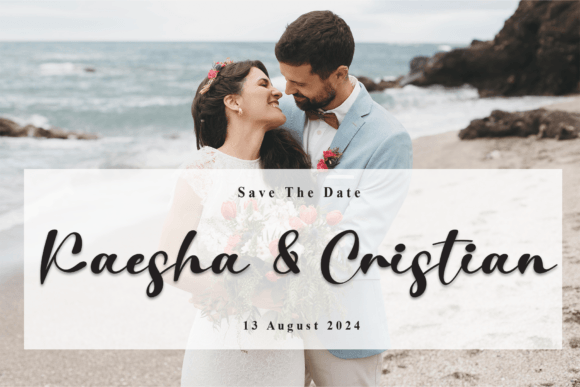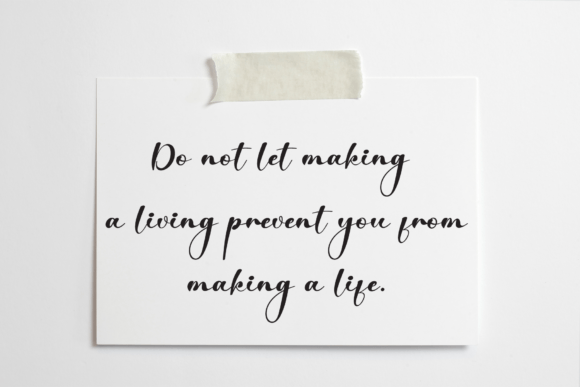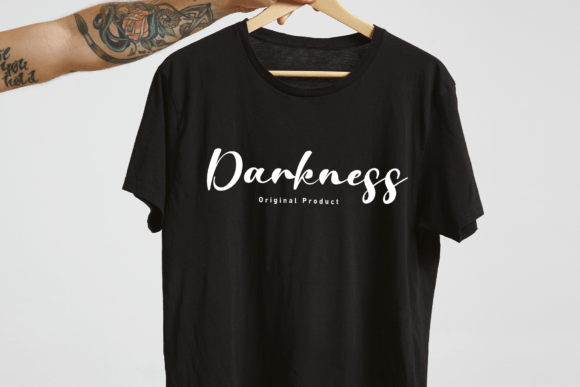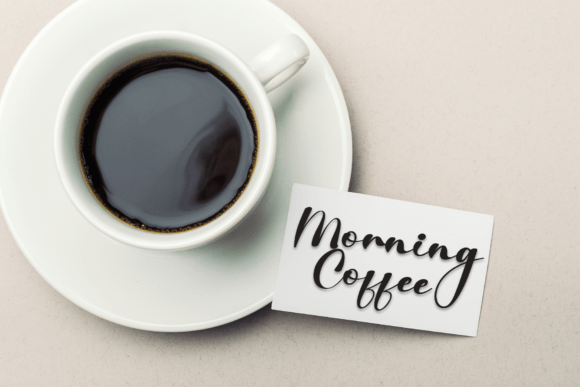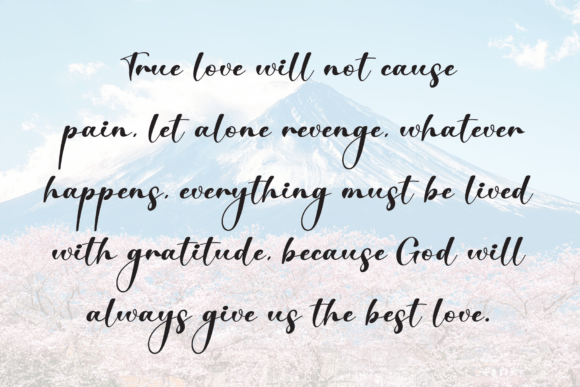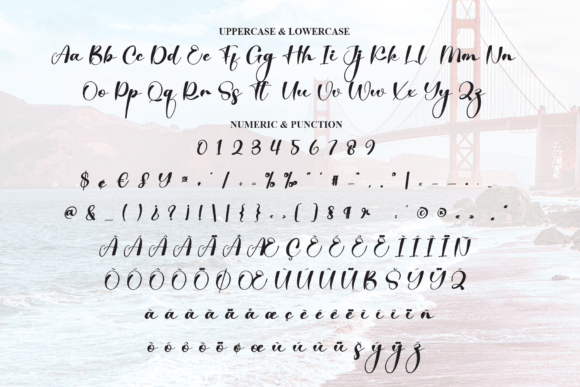
The Sunshine State of Typography
Have you ever been on a road trip along the Pacific Coast Highway, the wind in your hair and the sun on your face, feeling carefree and alive? That’s the essence of California, a place where dreams are made and memories are born. And just like the Golden State itself, a new font is emerging that embodies the spirit of this sunny place – the California Font.
This font is more than just a typographic creation; it’s a reflection of the state’s laid-back yet vibrant personality. Designed to evoke the feeling of a sunny day in California, this font is perfect for designers who want to add a touch of West Coast charm to their projects. Whether it’s a logo, a brochure, or a website, the California Font is sure to bring a smile to the faces of your audience.
California Font Key Features
- Unique Characteristics: California Font features a distinctive, modern script design with a relaxed feel, making it ideal for use in creative and casual applications.
- Font Weight: California Font offers a range of font weights, from light to bold, allowing for flexibility in design and layout.
California Font Review
First impressions of the California Font are quite pleasant ✨. The design team has successfully captured the essence of California’s laid-back vibe, which translates well into a friendly, approachable typeface. The font is highly legible, making it suitable for a wide range of applications, from signage to digital displays.
The California Font also excels in its versatility ✨. It works well in both display and text settings, making it an excellent choice for designers who need a font that can adapt to various contexts. The font’s rounded edges and subtle flair add a touch of sophistication without feeling too elaborate.
While the California Font is generally well-designed, there are some limitations to consider ⚠️. The font’s versatility can also be a double-edged sword; at times, it feels a bit too generic, lacking the unique character that some designers might be looking for. Additionally, the font’s weight range is somewhat limited, which may not be ideal for designers who require a more extensive weight range for their projects.
Overall, the California Font is a solid, dependable choice for designers ✨. While it may not be the most exciting or innovative font on the market, it gets the job done with ease and style. With its friendly demeanor and versatility, it’s an excellent choice for projects where a clean, approachable aesthetic is desired.
- Highly legible and adaptable
- Suitable for a wide range of applications
- Rounded edges and subtle flair
- Available in various weights
- Limited weight range
California Font: A Practical Application Guide
California Font is perfect for creating a relaxed, beachy vibe in your designs.
California Font is ideal for creating a laid-back, West Coast-inspired aesthetic in your designs.
California Font is perfect for creating a fun, casual vibe in your presentations and documents.
California Font is ideal for designs that evoke a relaxed, beachy vibe, such as:
- Beach-themed brochures and flyers
- Summer-themed social media posts
- West Coast-inspired branding
Remember to use California Font in conjunction with other design elements to create a cohesive and visually appealing design.
Pacifico is a modern script font that is often used for titles and headings. It is characterized by its elegant and flowing lines, making it perfect for creating a sophisticated and stylish look. Compared to California Font, Pacifico has a more refined and polished feel, making it ideal for high-end branding and advertising.